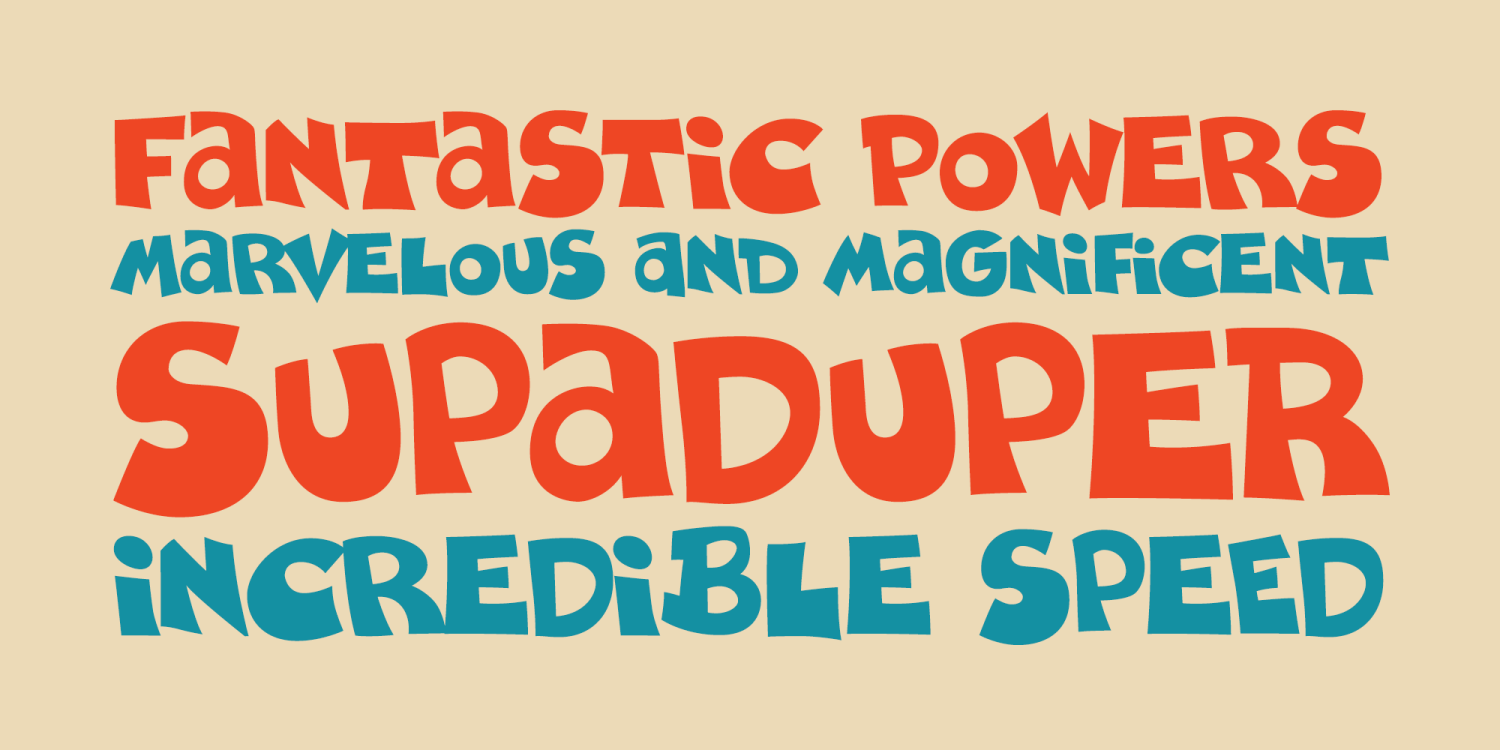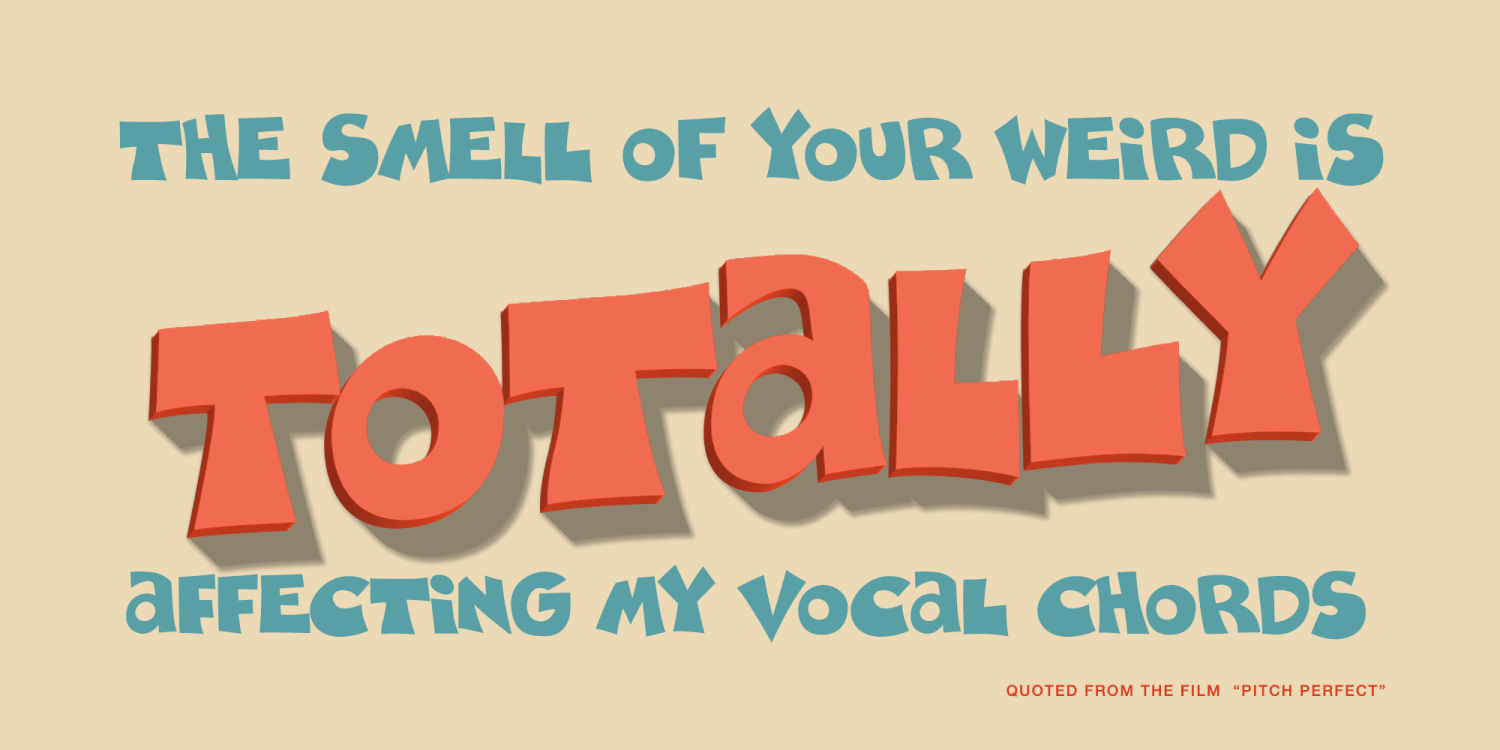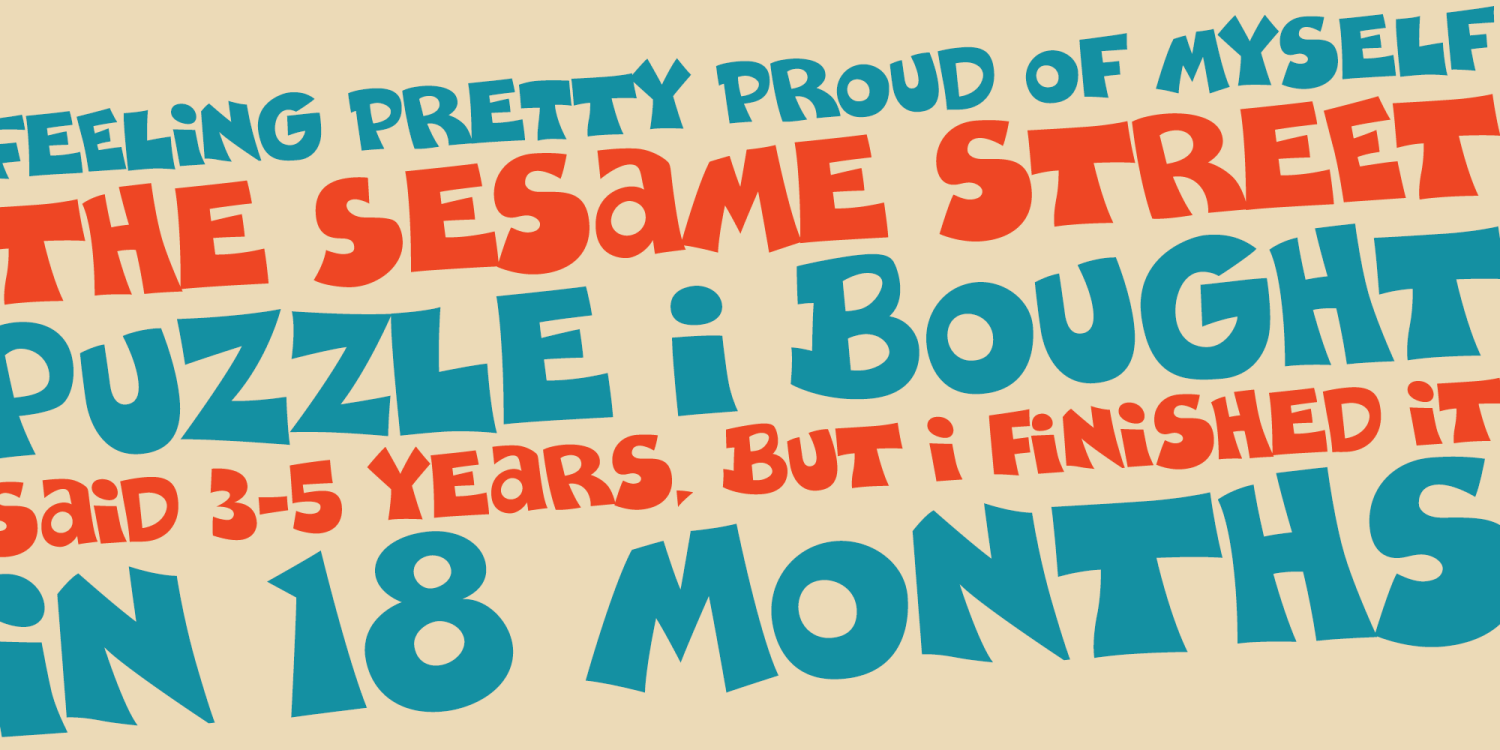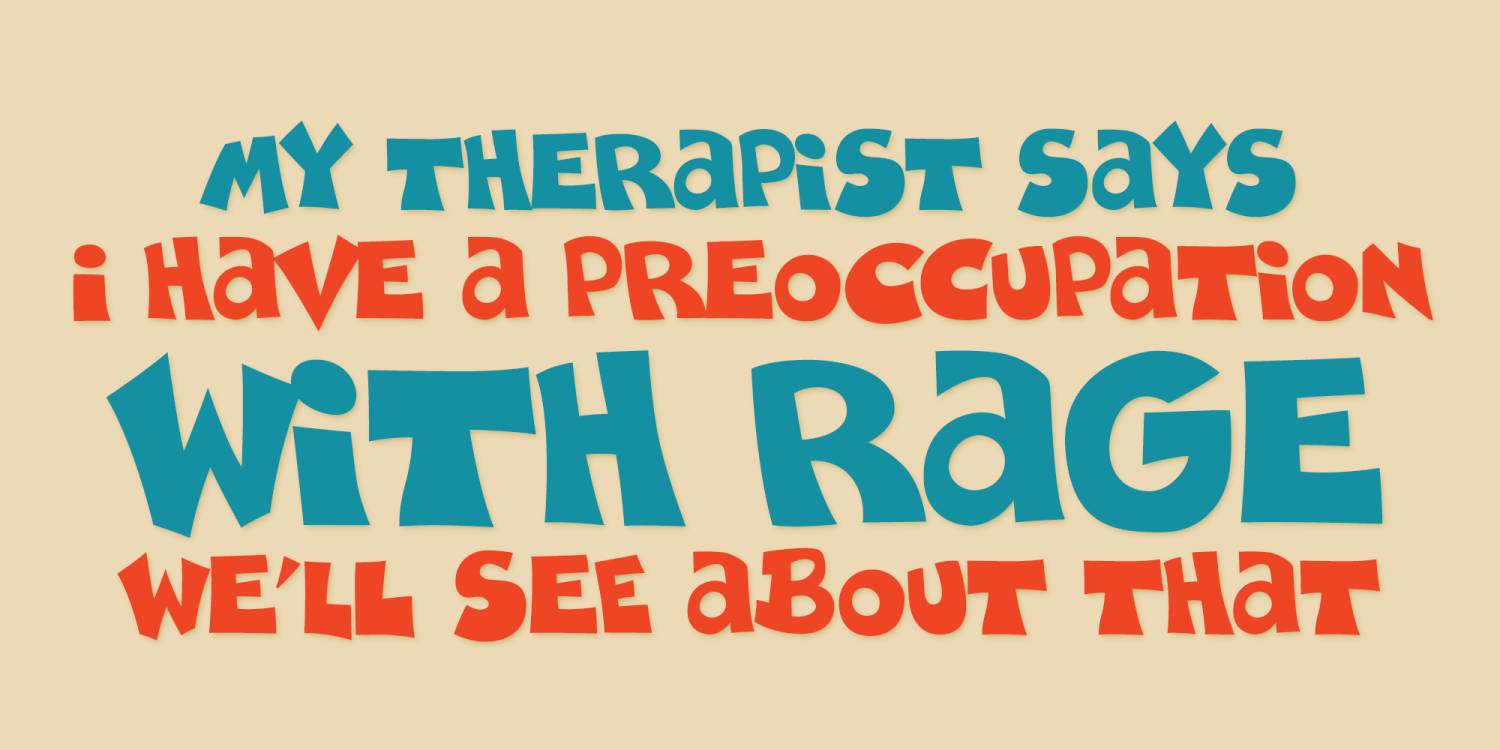
Supaduper PB
Font Family by Pink Broccoli
Supaduper PB is a font inspired by some wonderfully funky hand-lettered greeting cards from the 1980's. The delightfully awkward and animated playfulness of this lettering style was maintained throughout the fleshing out from the original specimens - and I think you're going to have a lot of fun typing with this. Even if you haven't seen these old greeting cards, the lettering style has a familiar visual to it.
Bring back a little nostalgia, add a little wonkiness, or just have fun typing with Supaduper PB today!